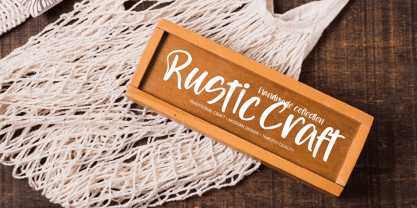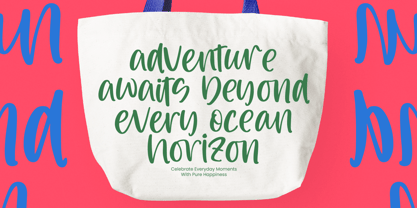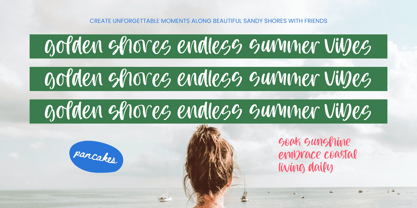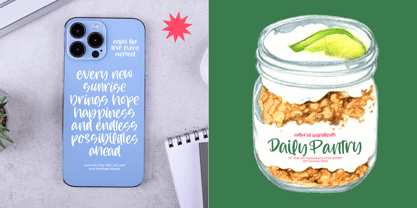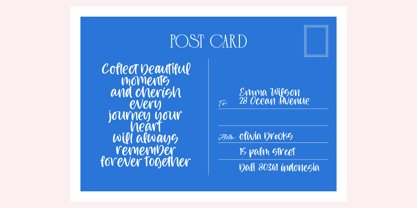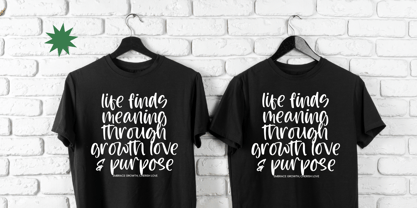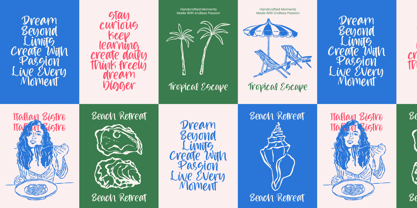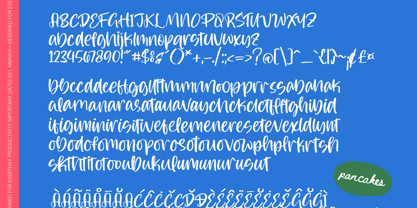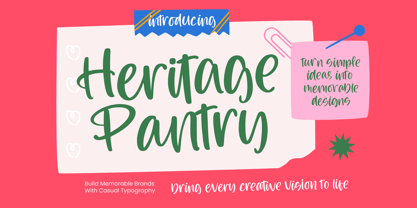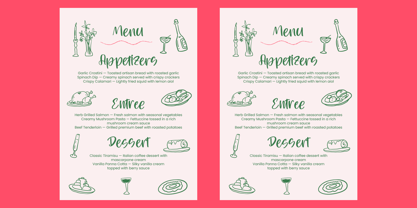
Heritage Pantry
The Heritage Pantry Font Family was designed by Heru Utama Putra and published by Stylishtype Studio. Heritage Pantry contains 2 styles and family package options. More about this family
Heritage Pantry - Casual Handwritten Font captures the essence of natural penmanship, offering a fluid, organic flow that brings a personal touch to any digital or print canvas. Its high-contrast strokes and approachable style make it an essential tool for designers aiming to bridge the gap between professional polish and handmade intimacy.
Perfect for brands seeking a relatable and approachable identity, this typeface excels in a variety of high-end settings. The Heritage Pantry - Casual Handwritten Font is ideal for luxury branding, boutique packaging, and editorial layouts that require a dash of personality. Whether utilized for elegant stationery, logo design, or lifestyle photography overlays, its unique character ensures your message resonates with visual warmth and artistic flair.